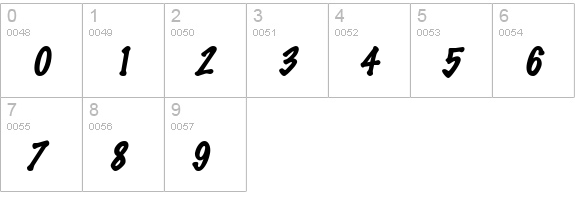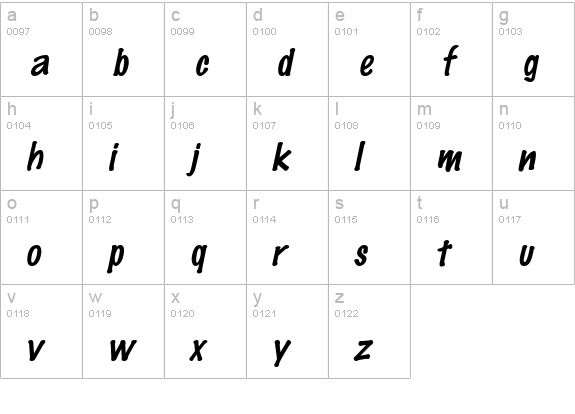
MarkingPen Italic is a distinctive, italic variant in the MarkingPen typeface family \xE2\x80\x94 well suited to design and typography projects.
Introducing MarkingPen Italic, a stunning and versatile font that effortlessly combines elegance with a touch of playfulness. With its unique and distinctive cursive style, this font is perfect for adding a touch of sophistication to any project, whether it's a logo, branding, invitations, or even social media posts. MarkingPen Italic is a truly eye-catching font that will captivate your audience with its flowing and dynamic letterforms. The slanted and italicized design adds a sense of movement and energy, making it ideal for conveying a sense of excitement and creativity. Whether you're aiming for a modern and trendy look or a more traditional and classic aesthetic, this font has got you covered. One of the best things about MarkingPen Italic is that it is freely available to download from FontsMarket.com. Yes, you read that right – it's completely free! FontsMarket.com is a reliable source for high-quality fonts, and they're offering this gem of a font for free, allowing you to enhance your designs without breaking the bank. With MarkingPen Italic, you have the freedom to experiment and explore a wide range of creative possibilities. Its versatility knows no bounds, as it effortlessly adapts to various design contexts, from elegant wedding invitations to edgy poster designs. This font is a true chameleon, adapting to your creative vision and elevating your projects to new heights. The attention to detail in MarkingPen Italic is truly remarkable. Each letter is meticulously crafted, ensuring perfect readability and legibility even at smaller sizes. The smooth curves and graceful strokes exude a sense of elegance and refinement, making this font a go-to choice for any design that demands a touch of sophistication. So why wait? Download MarkingPen Italic for free at FontsMarket.com and let your creativity flow. Unleash the potential of this captivating font and bring your designs to life with its unique charm and versatility. Whether you're a professional designer or an enthusiastic hobbyist, MarkingPen Italic is the perfect addition to your font collection, offering endless possibilities and a touch of timeless elegance.